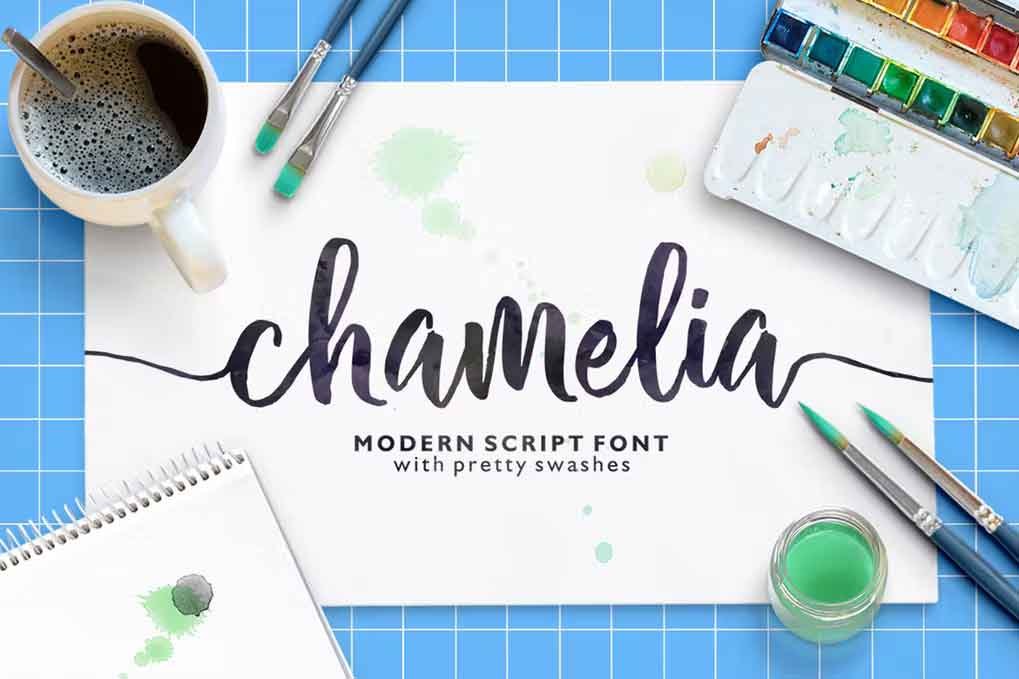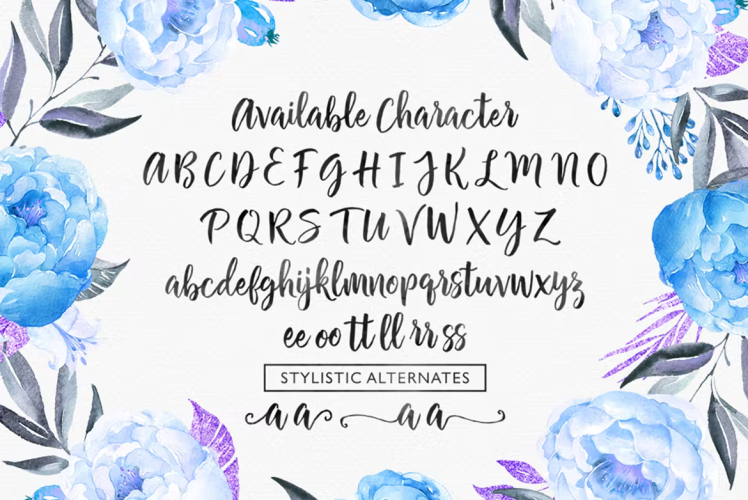
Chamelia Script Font
Chamelia Script is a modern script calligraphy, dynamic and pretty with swashes. Can used for various purposes. such as the title, signature, logo, wedding invitations, letterhead, signage, labels, newsletters, posters, badges, etc.
Chamelia Script Font is a Script And Handwritten font that brings a professional and versatile look to your projects. Chamelia Script is a modern script calligraphy, dynamic and pretty with swashes.
Chamelia Script Font Previews